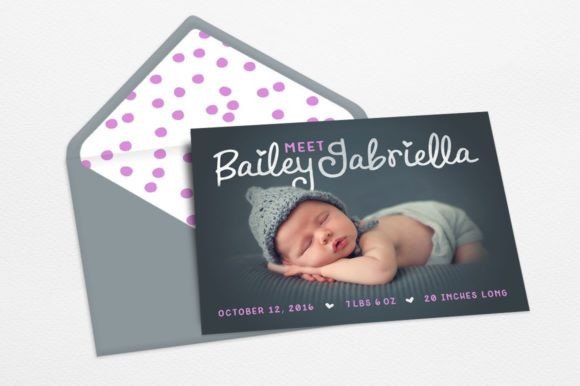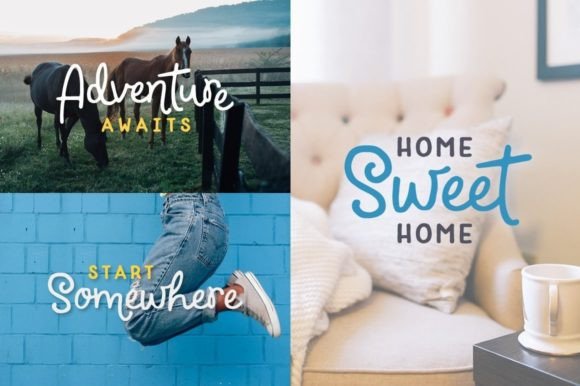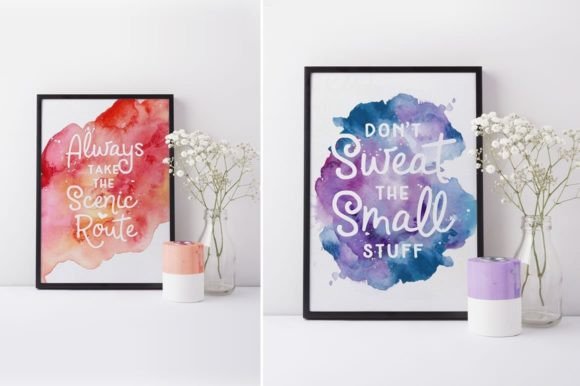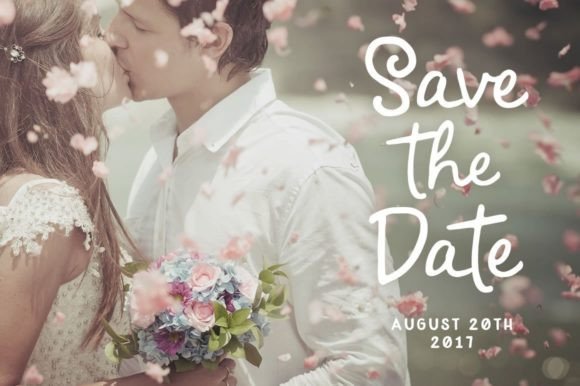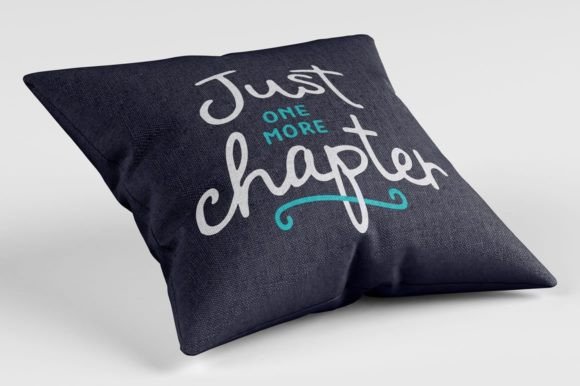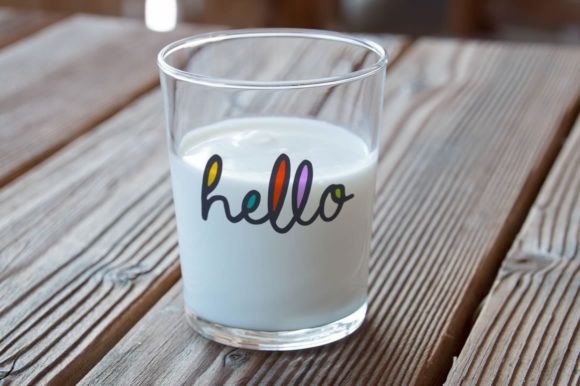
Introduction to Aquabella Font
Aquabella is a charming font duo that is ready to add a touch of fun to any project: birth announcements, shower and wedding invitations, greeting cards, posters, calendars, and so much more.
Aquabella Sans includes uppercase letters in regular and bold weights (bold variation is accessed using lowercase letters on the keyboard) Also included is a set of alternate uppercase and lowercase characters that you can mix and match with the original Aquabella font to help create precisely the look you want.